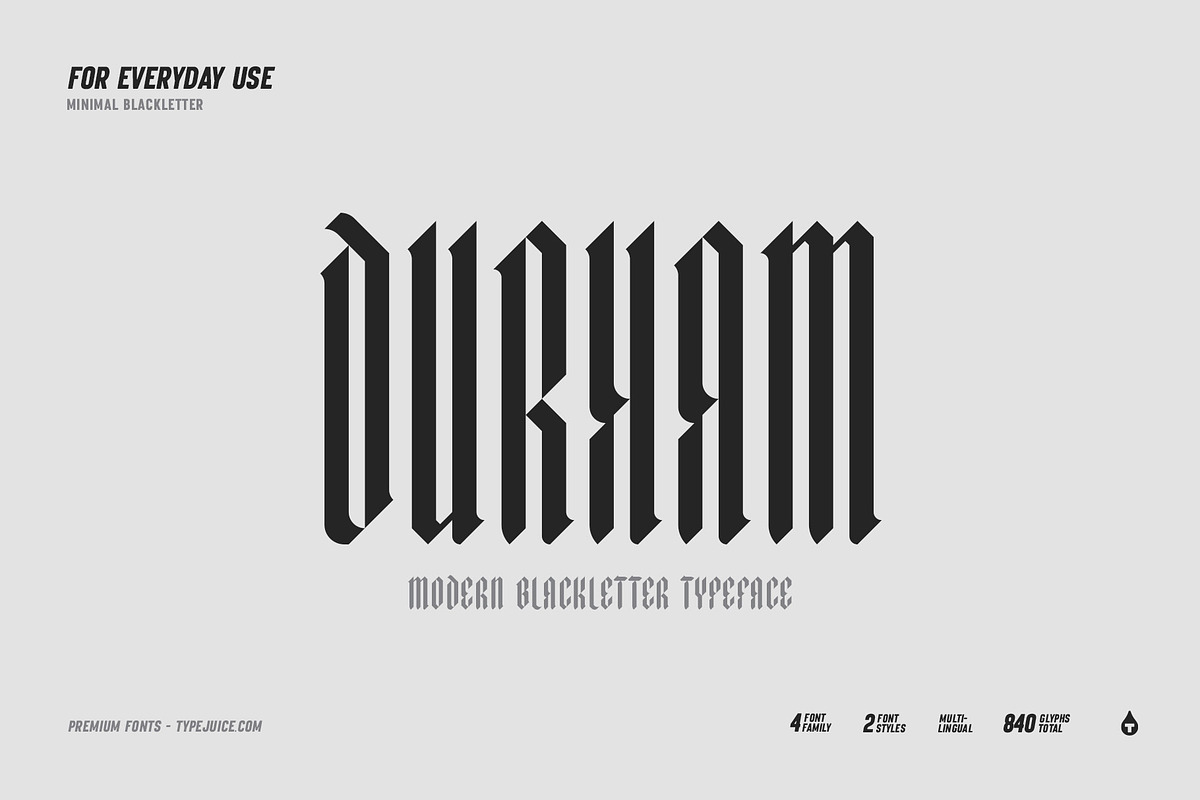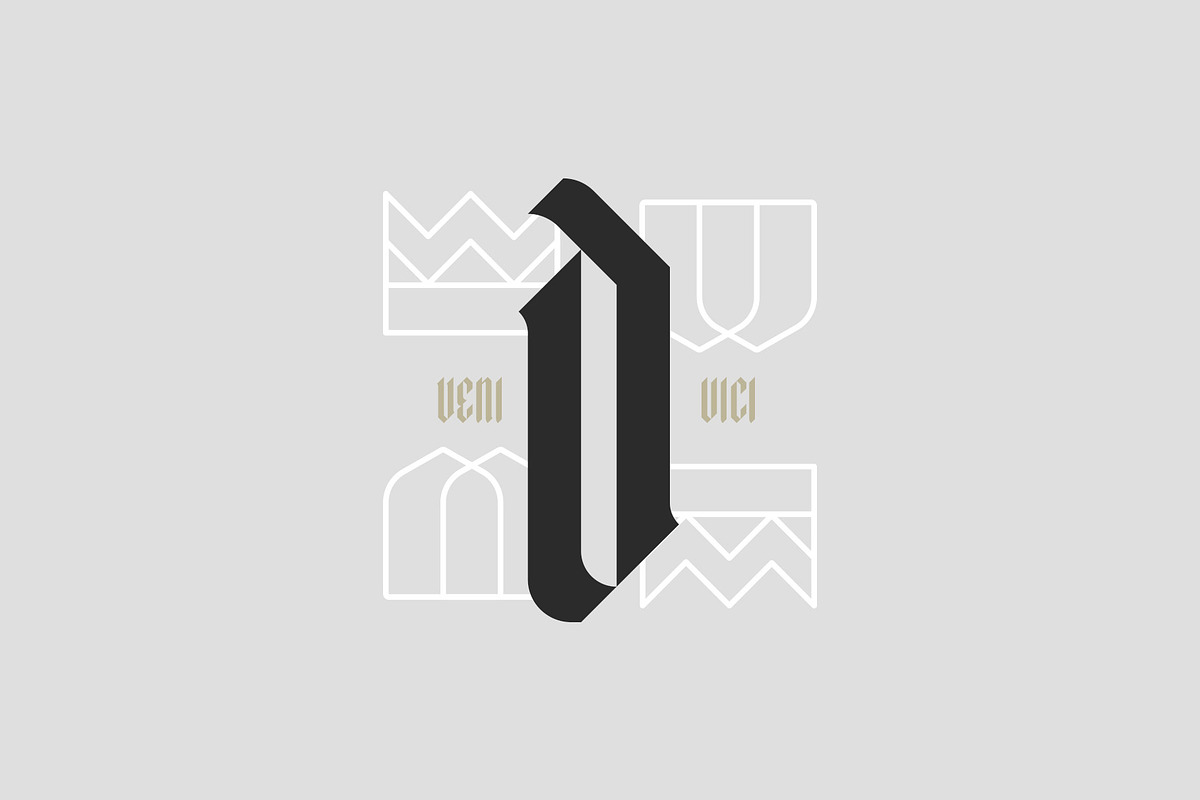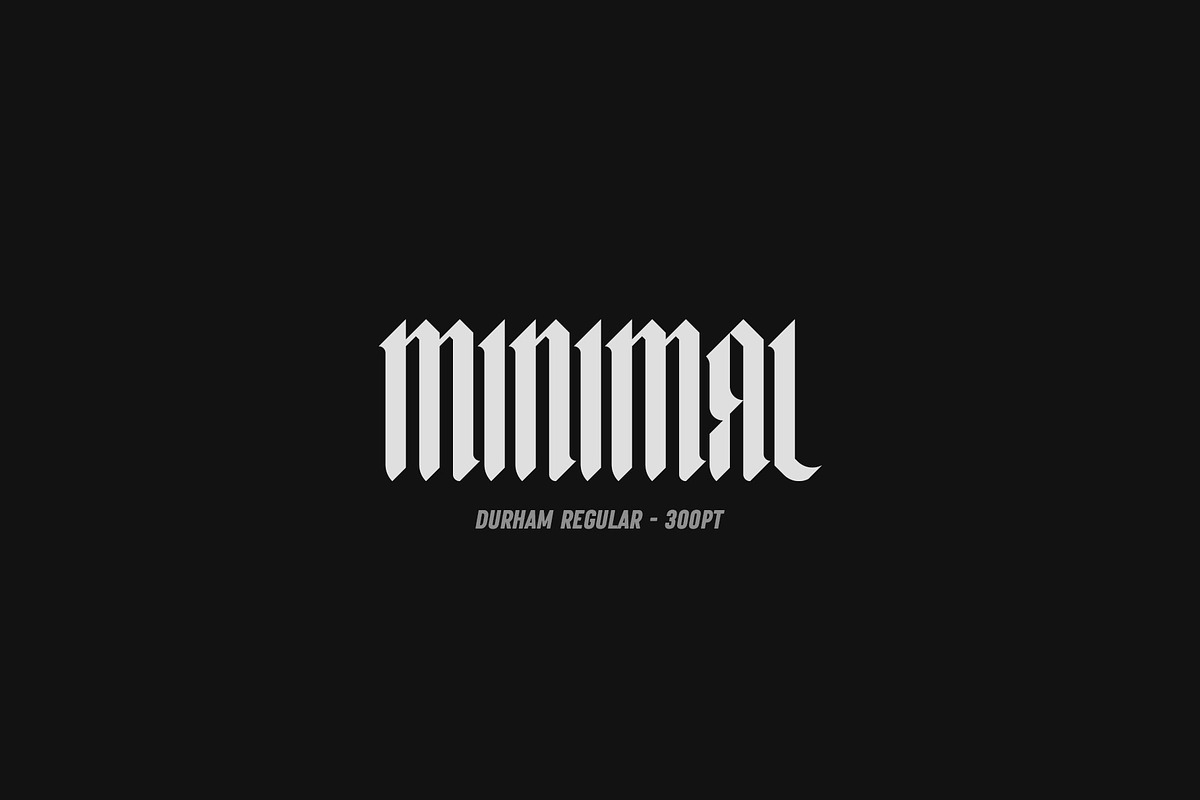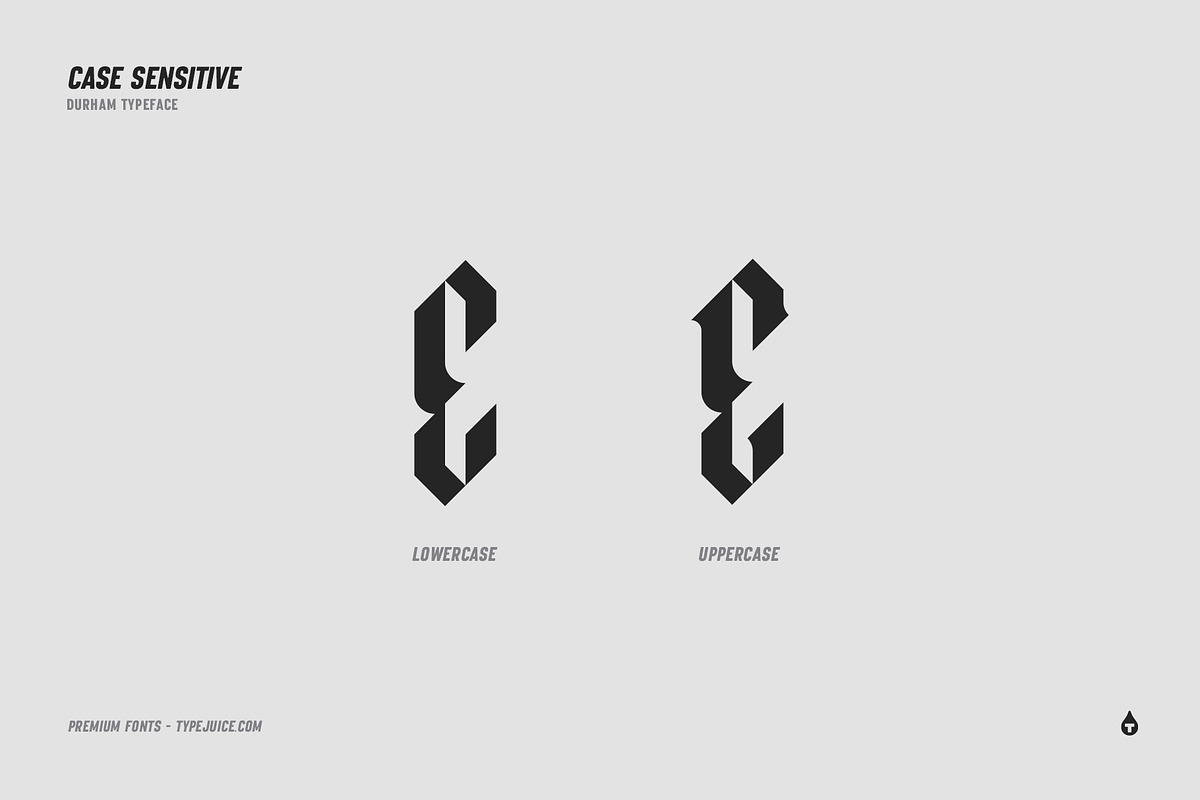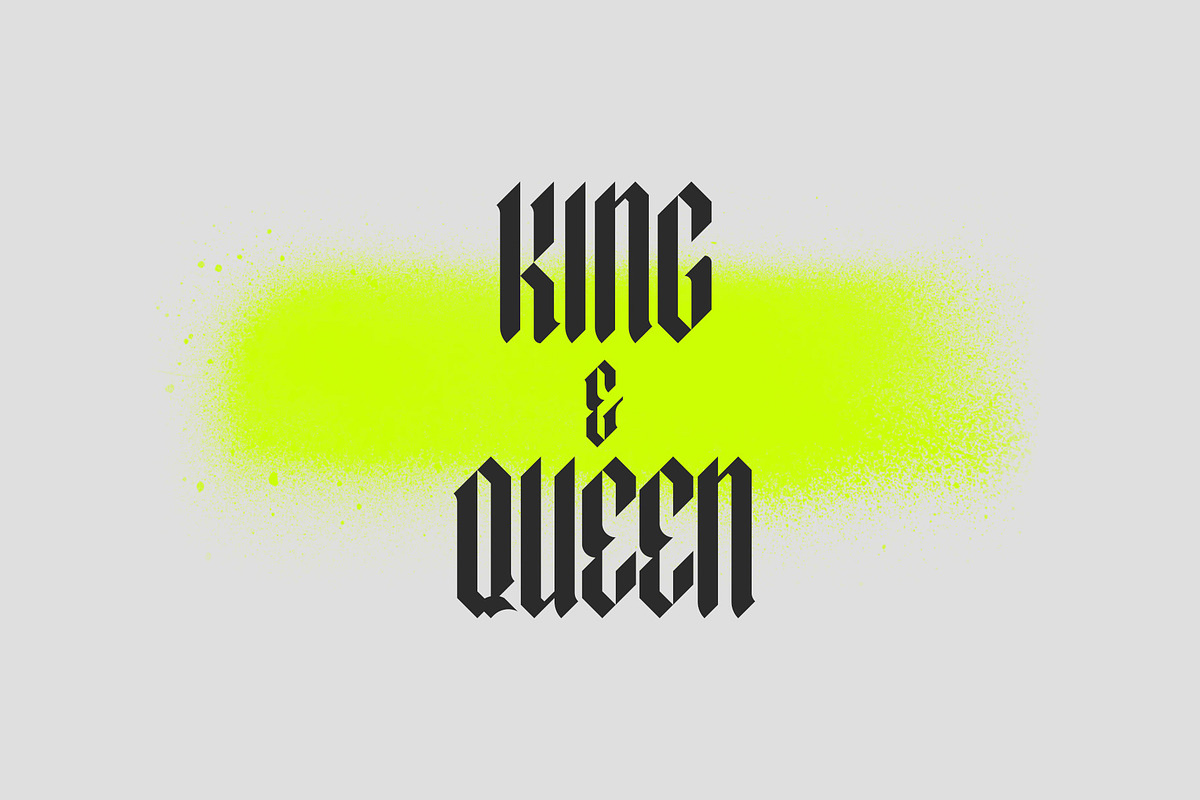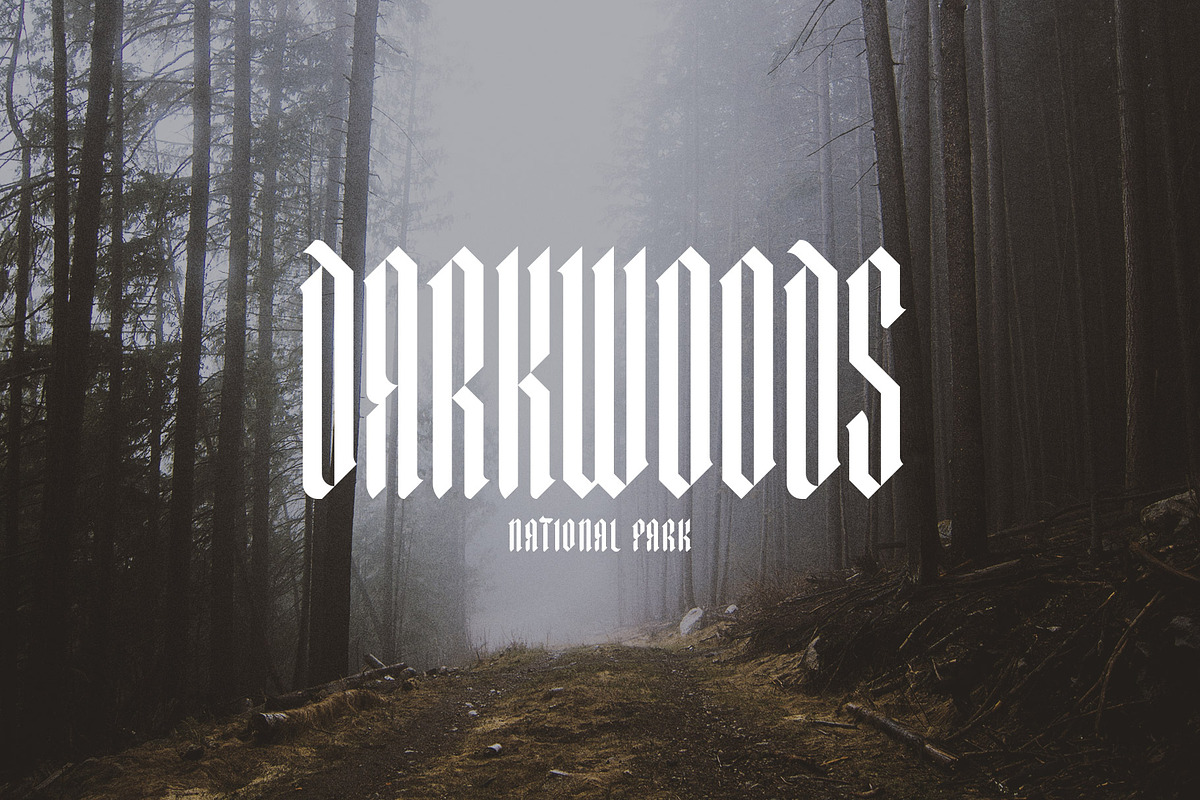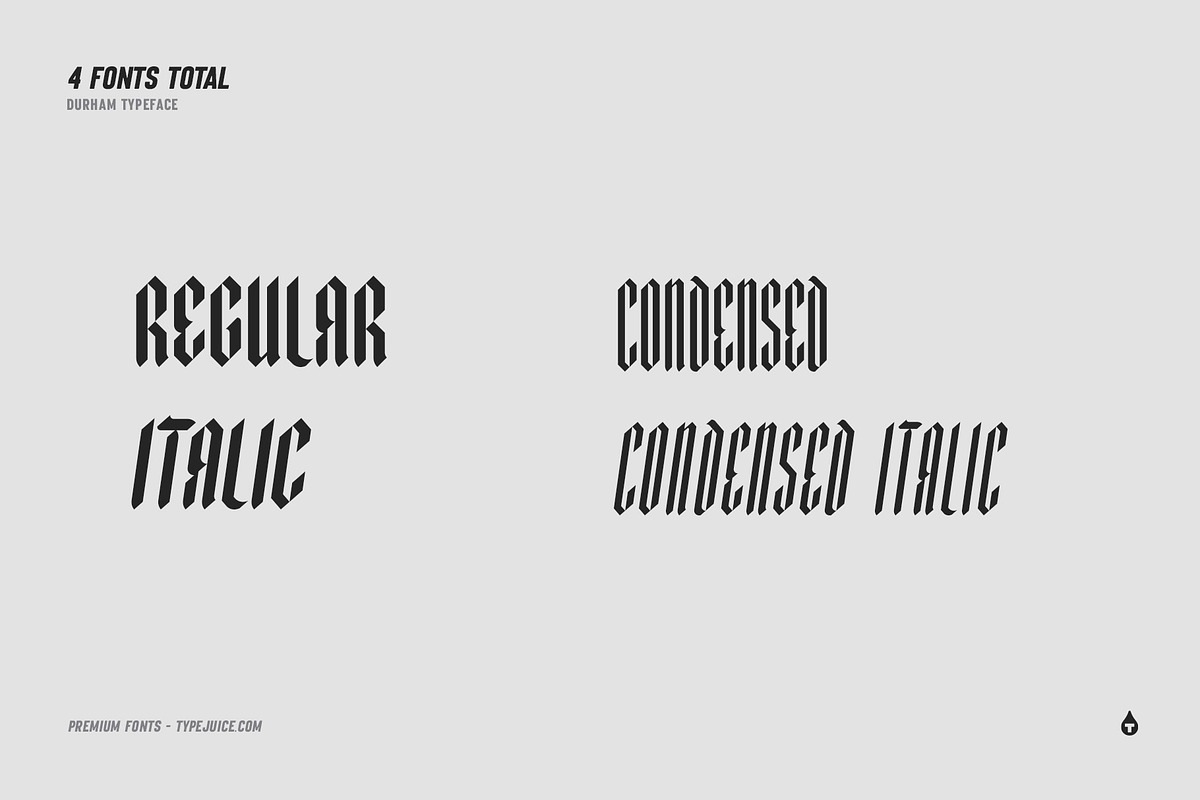
Durham Modern Blackletter Typeface
Durham is a modern blackletter typeface made up of 4 fonts. A clean and minimal take on classic blackletter with an ultra condensed look.
- Durham Condensed Italic
- Durham Regular
- Durham Italic
- Durham Condensed